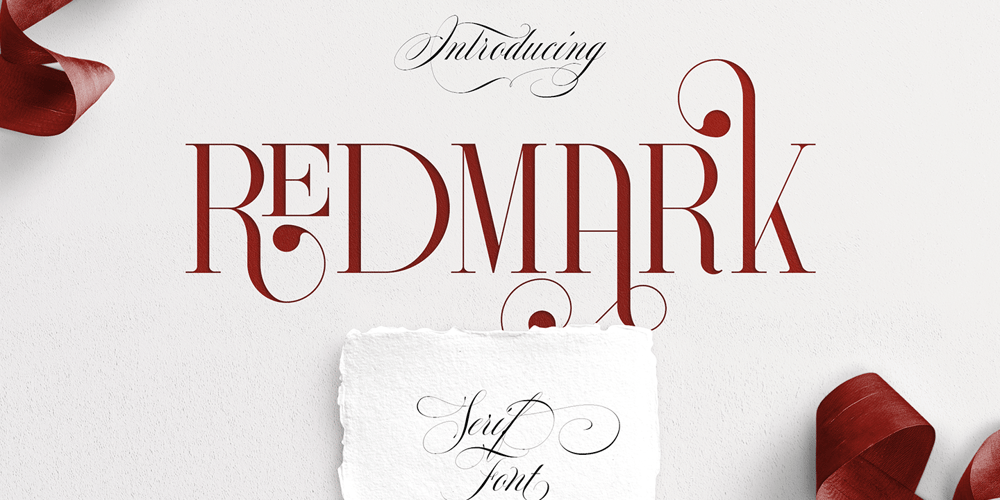
Redmark Font Family was designed by Vladimir Fedotov, Plamen Petrov and published by VP Creative Shop. Redmark contains 1 styles and family package options. Introducing Redmark – Elegant all caps serif fontRedmark is vintage yet clean font inspired from 80s typeface loaded with alternate and ligature glyphs to make you typography truly unique!Language Support : Belarusian, Bosnian, Bulgarian, Chechen, Macedonian, Russian, Serbian, Afrikaans, Albanian, Asu, Basque, Bemba, Bena, Breton, Chiga, Colognian, Cornish, Czech, Danish, Dutch, Embu, English, Estronian, Faroese, Filipino, Finnish, French, Friulian, Galician, Ganda, German, Gusii, Hungarian, Indonesian, Irish, Italian, Jola-Fonyi, Kabuverdianu, Kalenjin, Kamba, Kikuyu, Kinyarwadna, Litvian, Lithuanian, Lower Sorbian, Luo, Luxembourish, Luyia, Machame, Makhuwa-Meetoo, Makonde, Malagasy, Maltese, Manx, Meru, Morisyen, North Ndebele, Norwegian Bokm ål, Norwegian Nynorsk, Nyankole, Ormo, Polish, Portuguese, Quechua, Romanian, Romansh, Rombo, Rundi, Rwa, Samburu, Sango, Sangu, Scottish Gaelic, Sena, Shambala, Shona, Slovak, Soga, Somali, Spanish, Swahili, Swedish, Swiss German, Taita, Teso, Turkish, Ukrainian, Upper Sorbian, Uzbek (Latin), Volap ük, Vunjo, Walser, Welsh, Western Frisian, ZuluFEATURES Uppercase, numeral, punctuation & Symbol ligature glyphs alternates Multilingual support – 95 languages No special software is required to type out the standard characters of the Typeface. How to access alternate glyphs?To access alternate glyphs in Adobe InDesign or Illustrator, choose Window Type & Tables GlyphsIn Photoshop, choose Window Glyphs. In the panel that opens, click the Show menu and choose Alternates for Selection. Double-click an alternate’s thumbnail to swap them out.Feel free to contact me if you have any questions!Mock ups and backgrounds used are not included.Thank you! Enjoy!